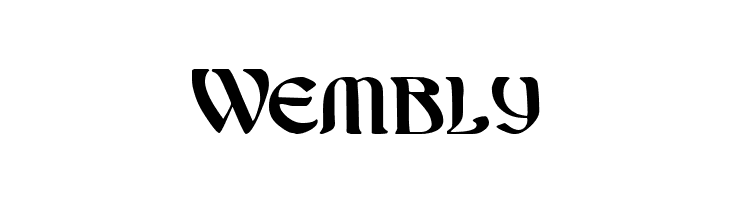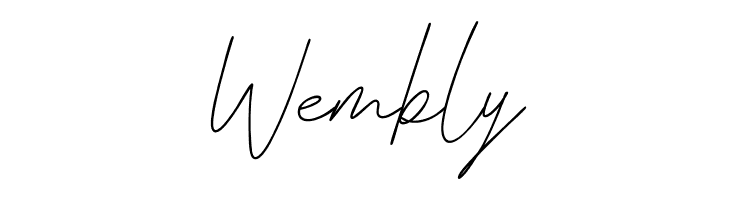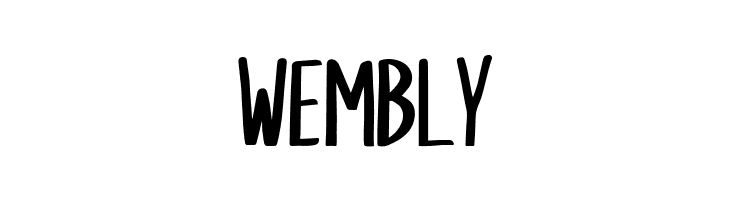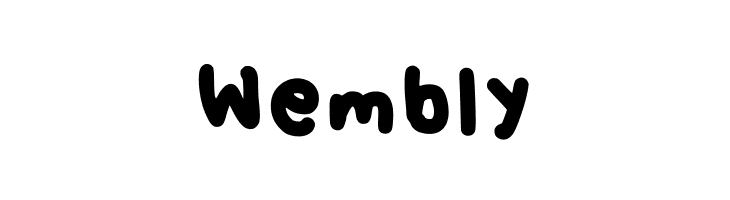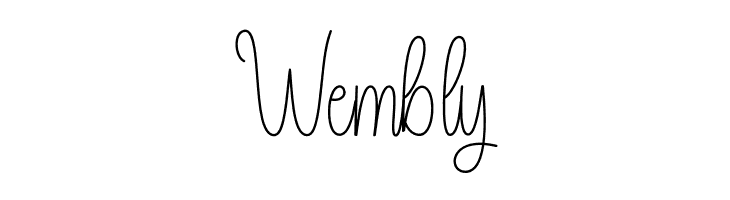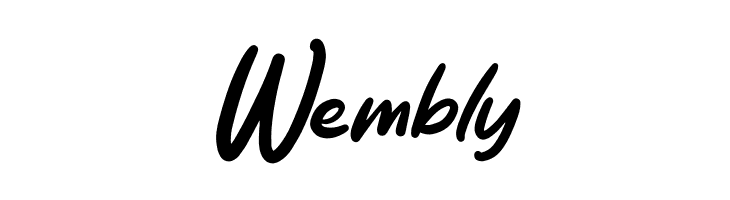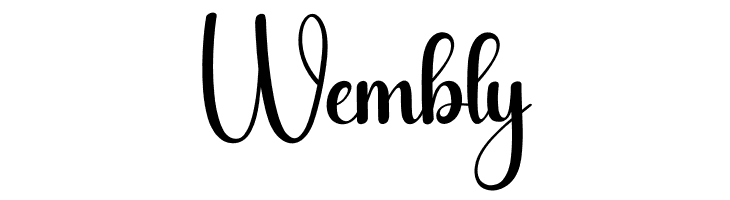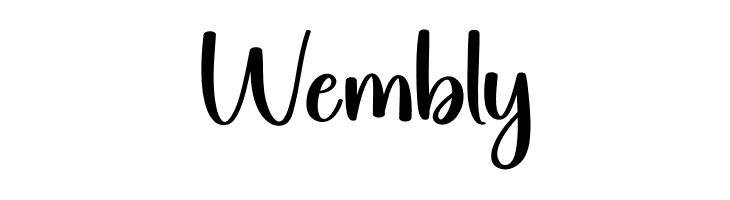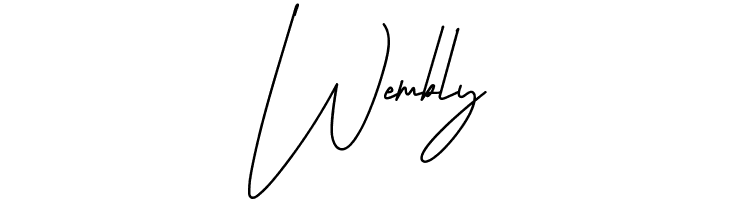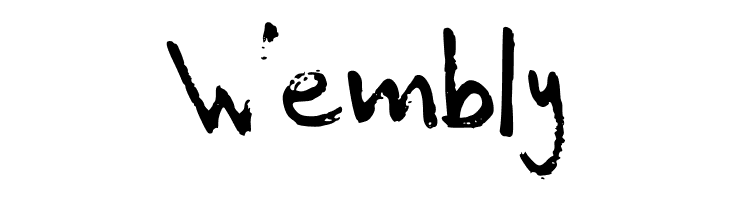
A playful, handwritten font with smooth, flowing curves and consistent stroke width.
A playful, hand-drawn font with a whimsical and friendly style.
A playful, hand-drawn font with irregular strokes and a whimsical style.
Elegant handwritten script with a signature style.
A bold, playful handwritten font with rounded edges and a whimsical style.
A modern, handwritten font with fluid strokes and a casual style.
Handwritten, marker-style font with rough, textured strokes.
A playful, hand-drawn font with tall, narrow letters and a casual vibe.
Expressive handwritten script with tall, narrow letters and fluid connections.
A playful, handwritten font with a modern and casual style.
Decorative script font with elegant, flowing lines.
A playful handwritten font with a lively and informal style.
A bold, playful handwritten font with dynamic strokes.
Bold, casual handwritten script font.
A casual, handwritten-style font with fluid, slightly irregular characters.
Casual handwritten script with brush-like strokes.
Whimsical handwritten script font.